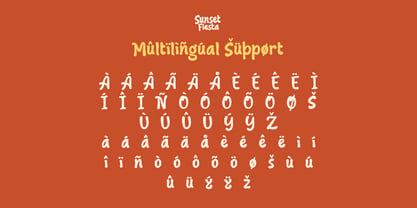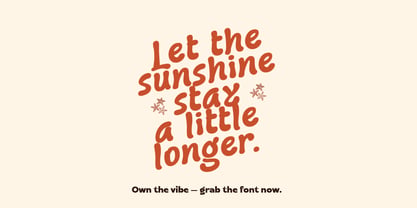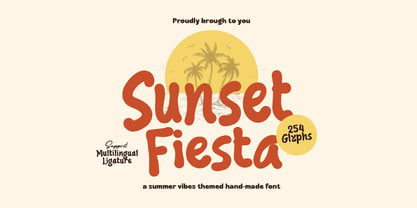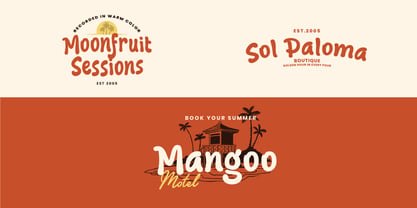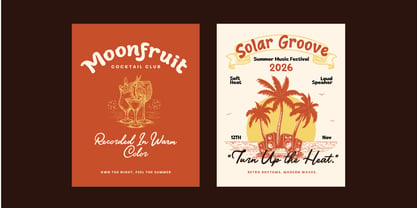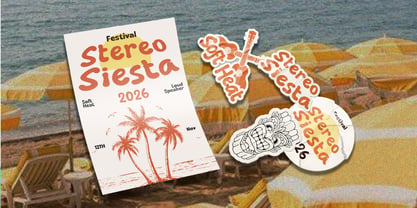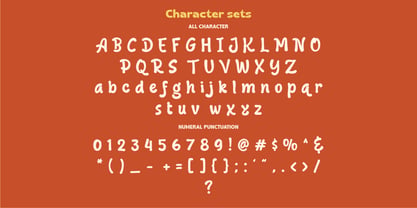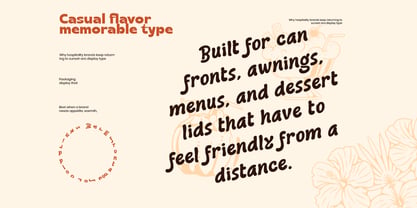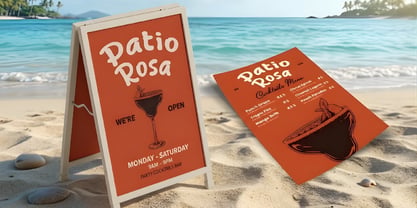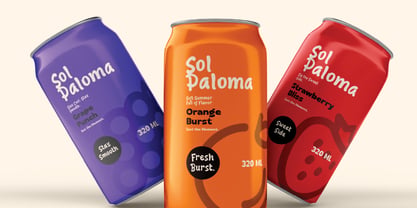
Sunset Fiesta
by Inviline
The Sunset Fiesta Font Family was designed by Virgiawan Listanto and published by Inviline. Sunset Fiesta contains 1 styles. More about this family
Sunset Fiesta is a hand-drawn display typeface that captures the warm, carefree essence of summer. With its bold, rounded letterforms and organic strokes, this typeface is ideal for display applications such as headlines, logos, packaging, and signage that demand a friendly and memorable presence from afar. Featuring 254 glyphs, it provides complete uppercase and lowercase coverage, numerals, punctuation, and extensive multilingual support, including accented characters. The inclusion of ligatures enhances its natural, flowing appearance, especially at larger sizes. Perfect for hospitality, food and beverage, apparel, and lifestyle brands, Sunset Fiesta infuses warmth, personality, and a hint of retro summer nostalgia into any project, making it a versatile choice for branding and editorial use.
Designers: Virgiawan Listanto
Foundry: Inviline